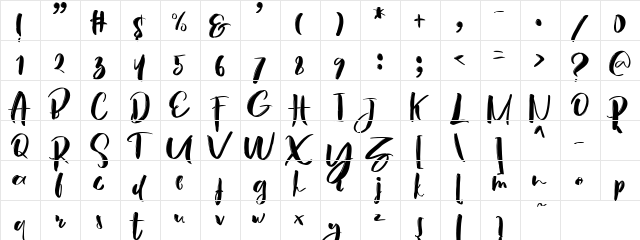
Hey Sunset Brush Font Medium
| Foundry | Debut Studio |
| Designer | DeenaType |
Design Context for Hey Sunset Brush Font Typeface
Hey Sunset Brush Font brings a calligraphic fluidity to the page — its connecting strokes and expressive curves give it an unmistakably human quality.
Font Pairing: Combine Hey Sunset Brush Font with a simple geometric sans for maximum contrast — the tension between flowing curves and clean structure is a classic typographic pairing.
Pro Tip: Pair Hey Sunset Brush Font with a clean sans-serif for supporting text. The contrast between fluid script and geometric structure creates an elegant typographic hierarchy.